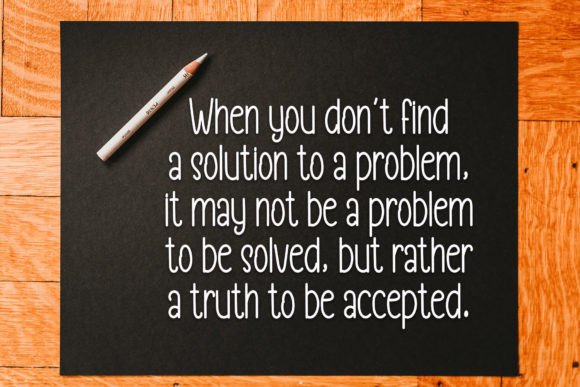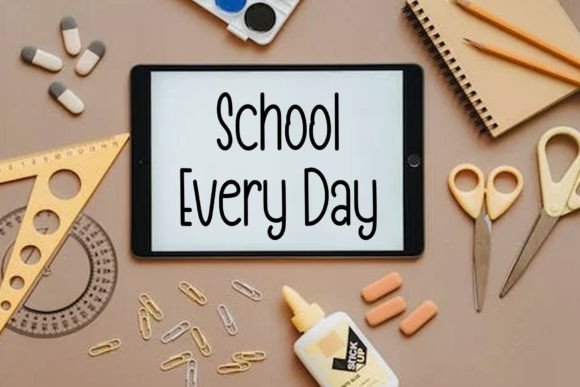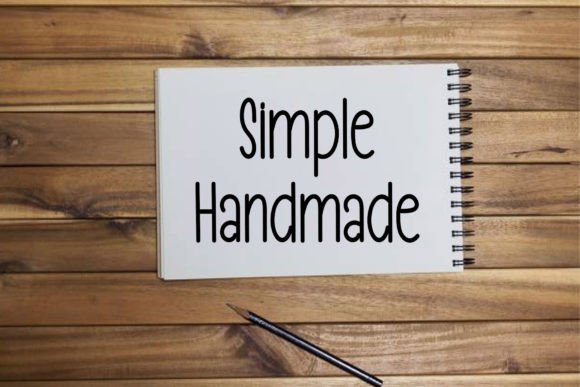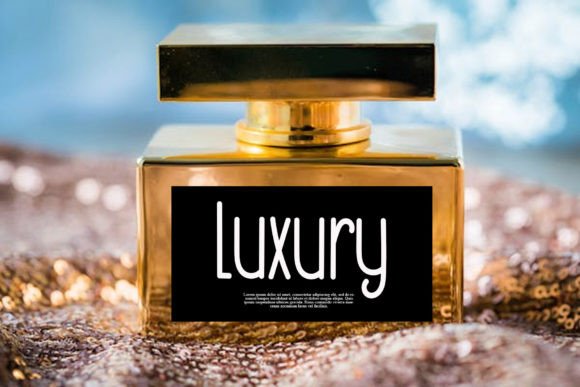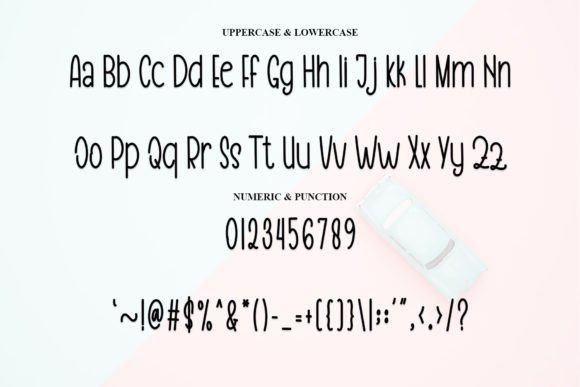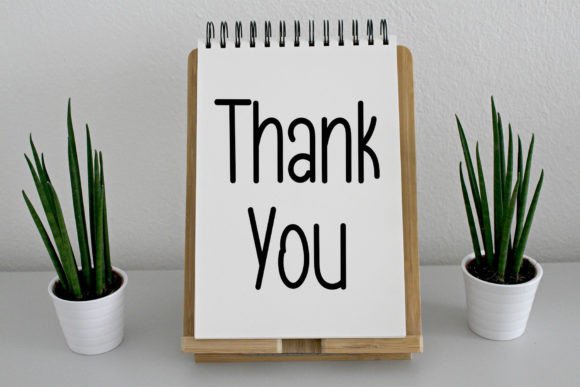
Introducing Beginning Font: Elevate Your Designs with Elegance
Are you a designer or crafter looking for a font that exudes style and sophistication? Look no further than Beginning Font, a stunning display font that is sure to elevate your designs to the next level. With its elegant and refined appearance, Beginning Font is perfect for a variety of projects, from wedding invitations and thank you cards to quotes, greeting cards, logos, business cards, and more.
The Perfect Handwritten Touch
Beginning Font is a beautifully crafted handwritten font that adds a touch of warmth and personality to any design. Its flowing lines and delicate curves create a sense of movement and fluidity, making it perfect for designs that require a more personal and human touch. Whether you’re creating a wedding invitation, a logo, or a social media graphic, Beginning Font is sure to make your design stand out from the crowd.
One of the best things about Beginning Font is its versatility. This font can be used for a wide range of projects, from formal events like weddings and galas to more casual designs like social media graphics and blog posts. Its elegant appearance makes it perfect for designs that require a level of sophistication, while its playful feel makes it suitable for more creative and artistic projects.
Why Choose Beginning Font?
So why choose Beginning Font over other fonts on the market? Here are just a few reasons why this font stands out:
• Elegant and Refined: Beginning Font has a sophisticated and elegant appearance that is sure to impress.
• Versatile: This font can be used for a wide range of projects, from formal events to casual designs.
• Handwritten Touch: Beginning Font adds a personal and human touch to any design, making it perfect for projects that require a more personal feel.
• Easy to Read: Despite its elegant appearance, Beginning Font is easy to read and understand, making it perfect for designs that require a clear and concise message.
How to Use Beginning Font
• Use it for Headings: Beginning Font is perfect for headings and titles, where its elegant appearance can really shine.
• Experiment with Colors: Try pairing Beginning Font with different colors and textures to create a unique and eye-catching design.
• Mix and Match: Don’t be afraid to mix and match Beginning Font with other fonts to create a unique and interesting design.
Still not sure how to use Beginning Font? Here are a few ideas and inspiration to get you started:
• Wedding Invitations: Use Beginning Font to create beautiful and elegant wedding invitations that set the tone for the big day.
• Social Media Graphics: Add a touch of elegance to your social media graphics with Beginning Font.
• Logos and Branding: Use Beginning Font to create a sophisticated and elegant logo that reflects your brand’s values and personality.
In conclusion, Beginning Font is a stylish and incredibly elegant display font that is perfect for designers and crafters looking to add a touch of sophistication to their designs. With its versatile appearance and easy-to-use format, Beginning Font is sure to become a go-to font in your design arsenal. So why wait? Download Beginning Font today and start elevating your designs to the next level.